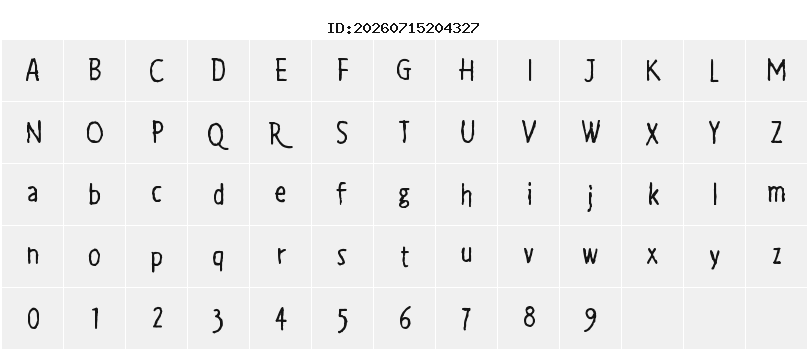
Auribus tenere lupum Preview
• Font Name: Auribus tenere lupum
• Full Font Name: Auribus tenere lupum
• Version: Version 1.00 November 14, 2015, initial release
About Auribus tenere lupum.ttf
Auribus tenere lupum.ttf is a modern, elegant sans-serif font designed for ultimate readability and visual harmony. Perfect for branding, headlines, web design, and print materials.